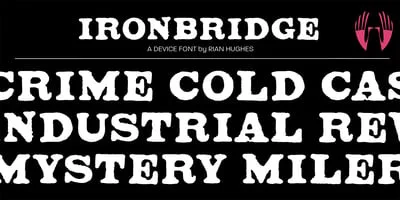
Ironbridge Font
Ironbridge Font is perfect for industrial company branding, construction firm logos, engineering project presentations, manufacturing process documentation, steel industry materials, architectural blueprints, heavy machinery advertisements, infrastructure development reports, metalworking shop signage, and industrial heritage museum displays. This robust typeface brings authentic industrial strength and engineering precision to any design project celebrating manufacturing excellence and structural integrity.
Ironbridge Font is exciting because it captures the enduring strength and revolutionary spirit of the Industrial Revolution through its bold, structural letterforms that evoke iron bridges and engineering marvels. The font's solid construction and industrial character communicate durability, reliability, and engineering prowess, making it perfect for brands that want to showcase strength, innovation, and industrial heritage to professional audiences.
Ironbridge Font family includes multiple weights and styles: Regular, Bold, Light, Medium, Black, Condensed, Extended, Steel, Industrial, and Heavy variants. Each style maintains the distinctive structural character while providing comprehensive options for creating powerful industrial branding and engineering communications that celebrate both historical manufacturing heritage and contemporary industrial innovation.
Whether you're designing for manufacturing companies, engineering firms, or industrial projects, Ironbridge Font delivers the structural authority that resonates with industry professionals and manufacturing audiences. This commanding typeface combines industrial heritage with modern functionality, making it essential for projects requiring both engineering credibility and visual impact. The font's robust presence ensures memorable results in industrial and construction contexts.